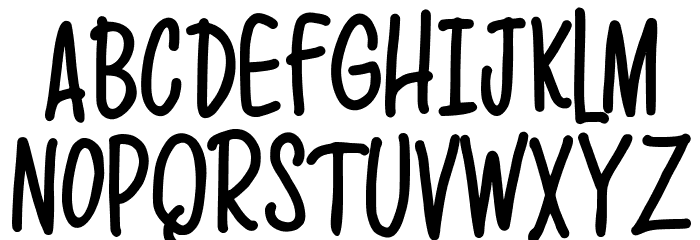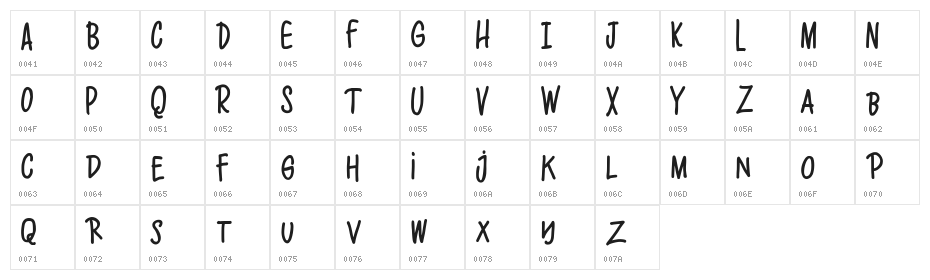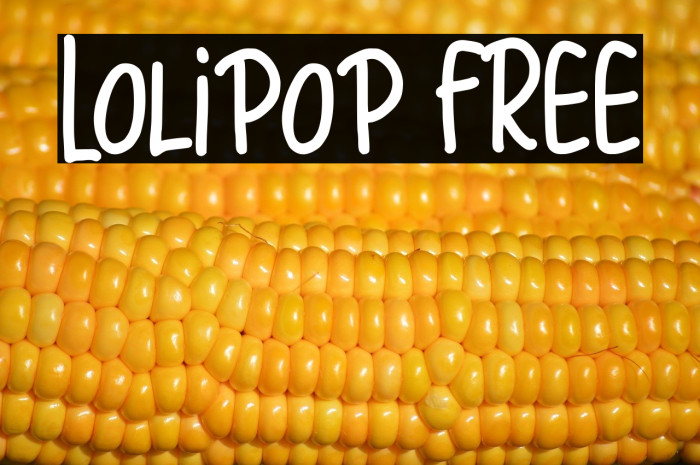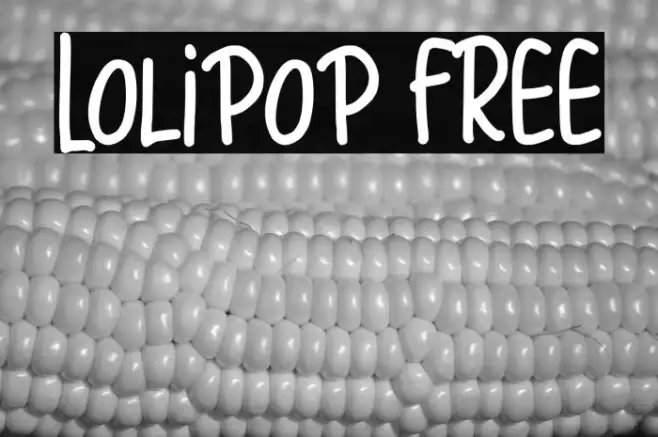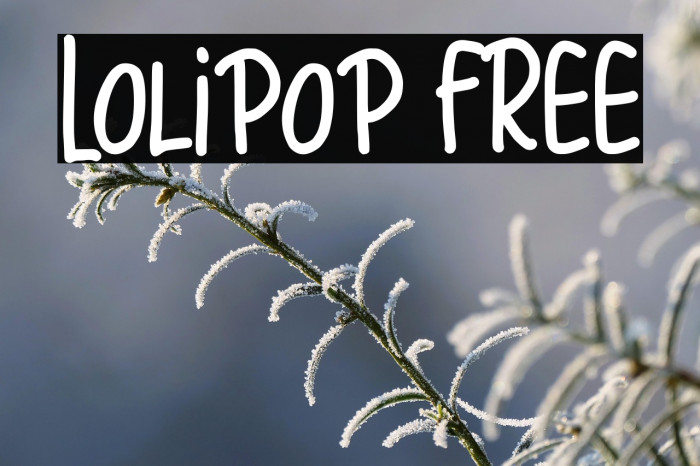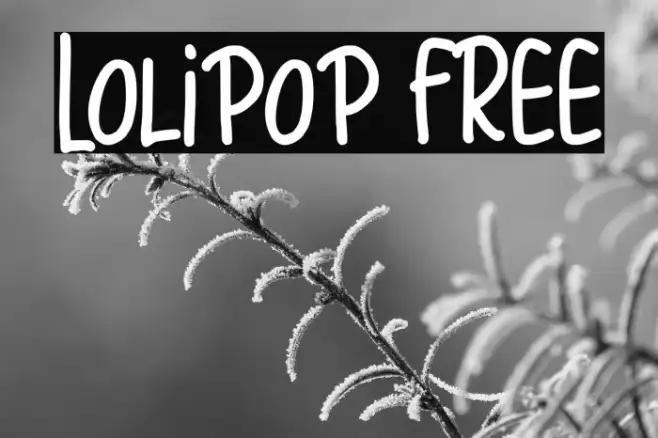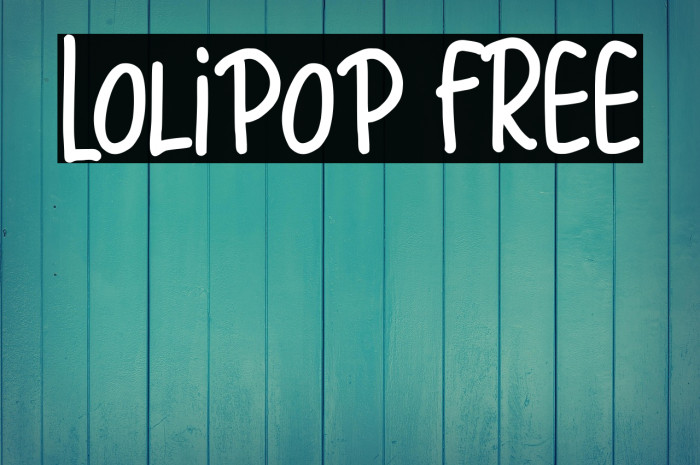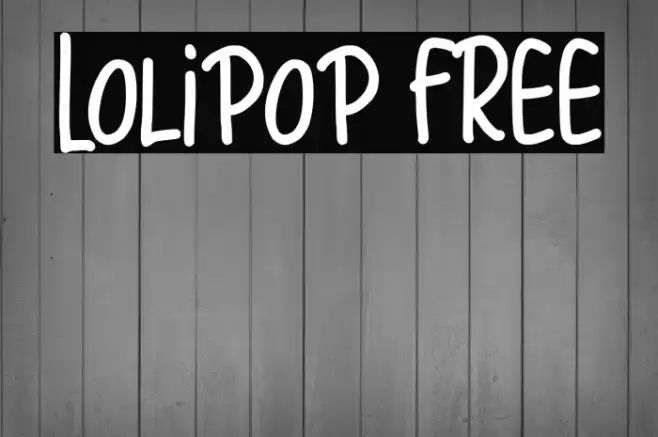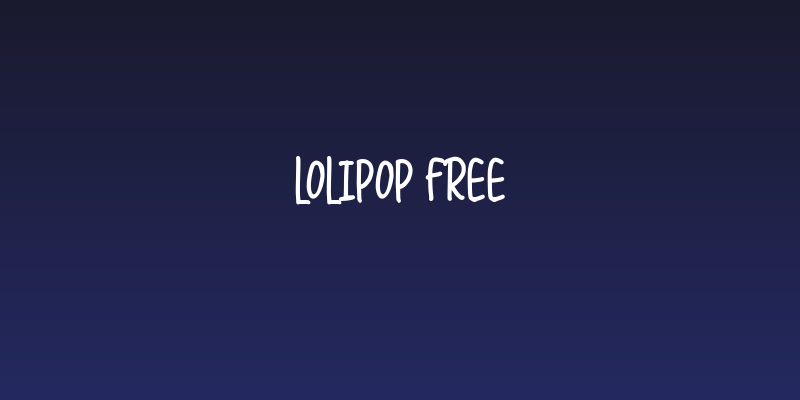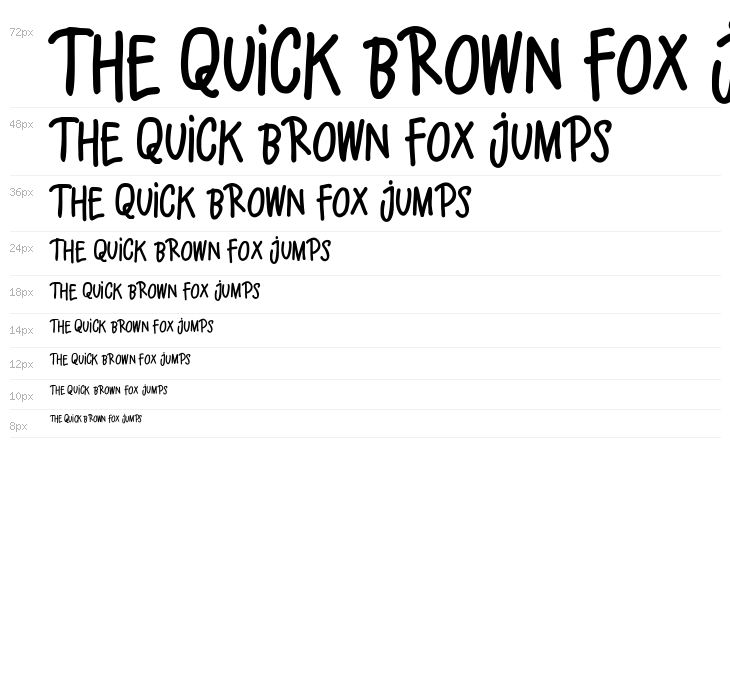
Lolipop FREE Font
Lolipop FREE Description
This font features a playful and casual handwritten style, characterized by its bold and slightly irregular strokes. The letters have a lively and energetic appearance, with a consistent thickness that adds to its boldness. The uppercase and lowercase letters maintain a cohesive look, with rounded edges and a slight slant that gives it a dynamic feel. The numerals and special characters are designed to match the overall style, ensuring a harmonious appearance across all text. This font is perfect for projects that require a fun and approachable aesthetic.
| Proposed Projects | Ideal for children's books, greeting cards, playful branding, and social media graphics. |